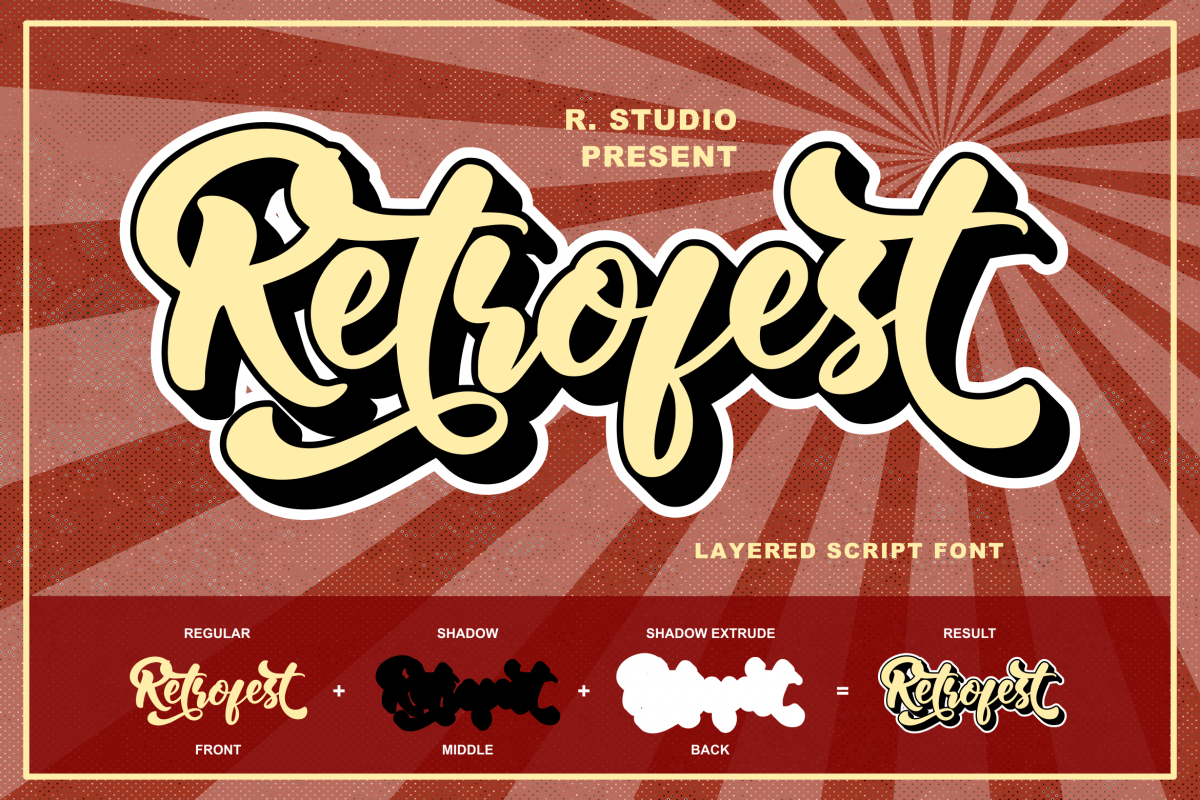
Retrofest
The Retrofest is a hand lettered script font, It has a bold style and comes in 3D style in a 3 layered font system.
It’s suitable for logos, titles, posters, labels, t-shirts, branding, flyers, etc.What's included :